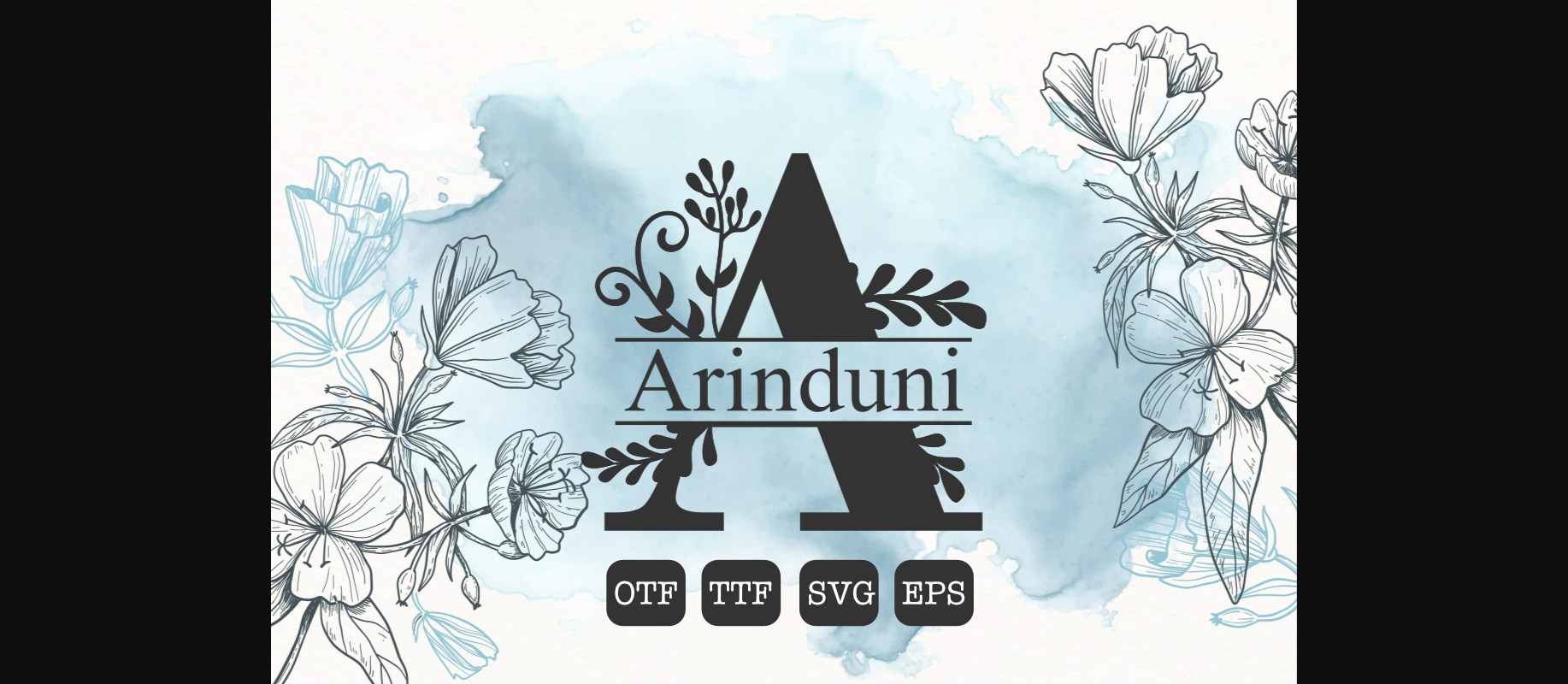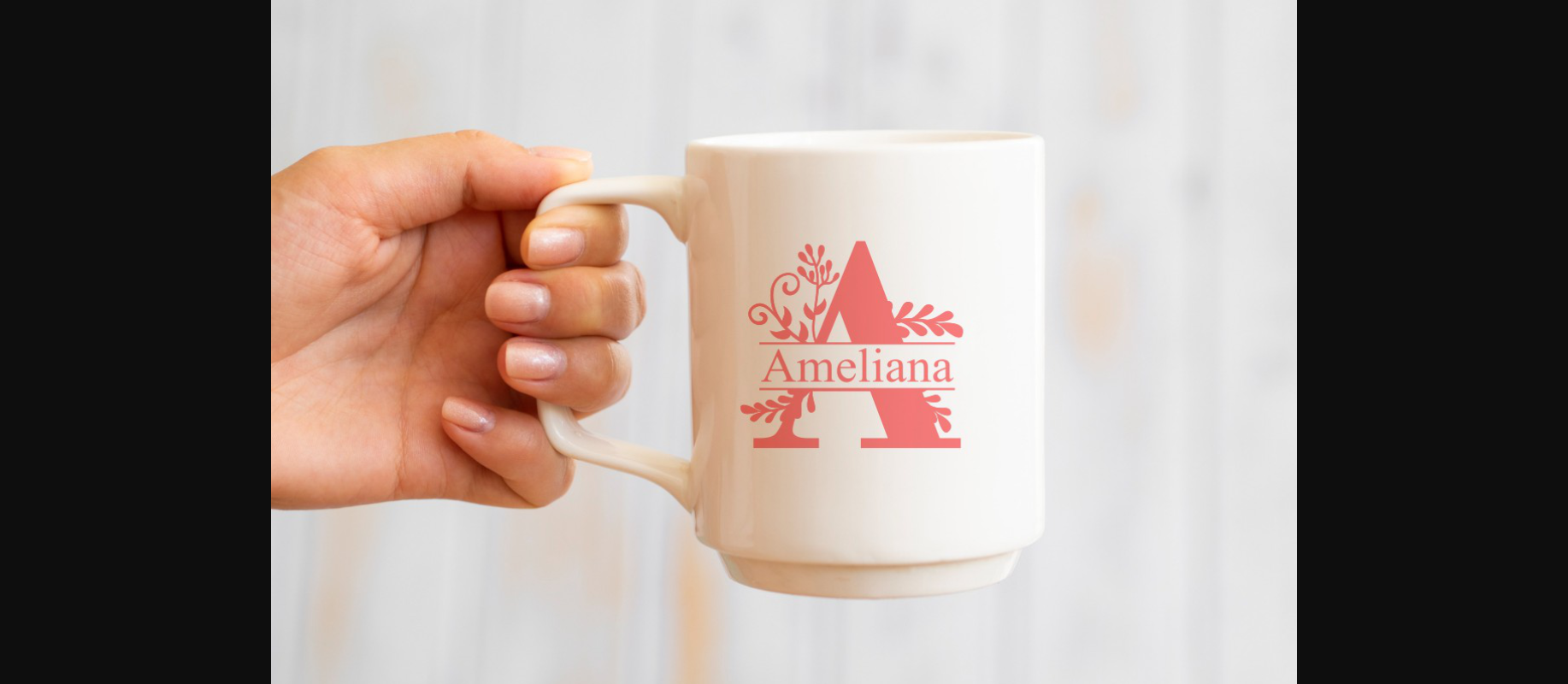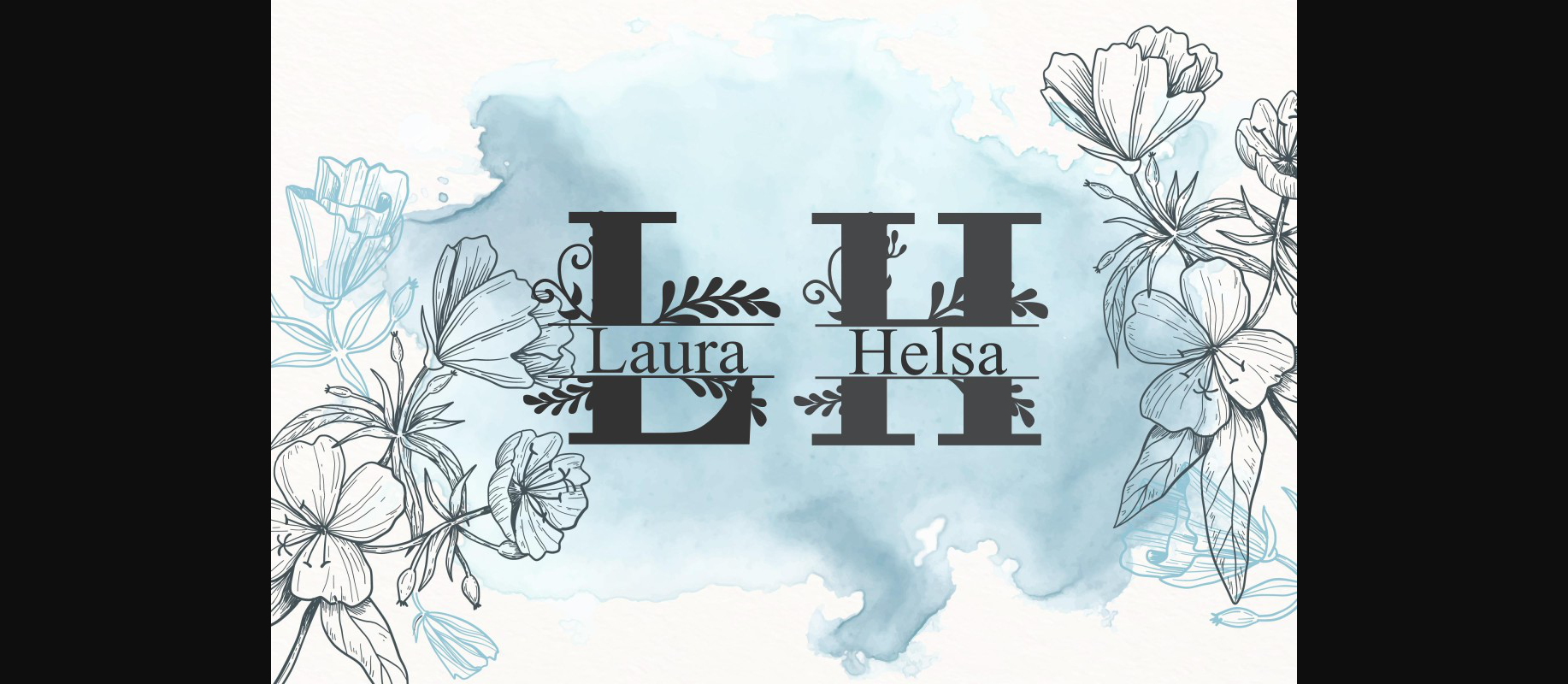
Arinduni Monogram Font
About Arinduni Monogram Font
Introducing Arinduni Monogram Font, an enchanting blend of letterforms and floral motifs. This exquisite font is meticulously designed to create a harmonious fusion of elegance and natural beauty. With its captivating combination of ornate initials and delicate blossoms, Arinduni Monogram Font adds a touch of sophistication and personalization to any project.